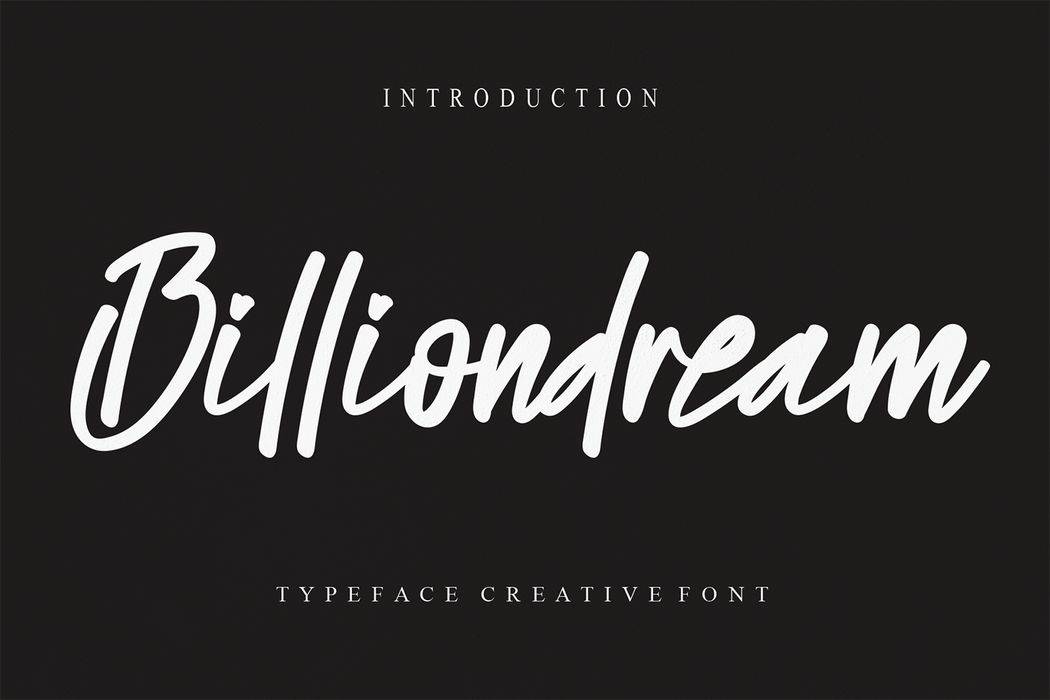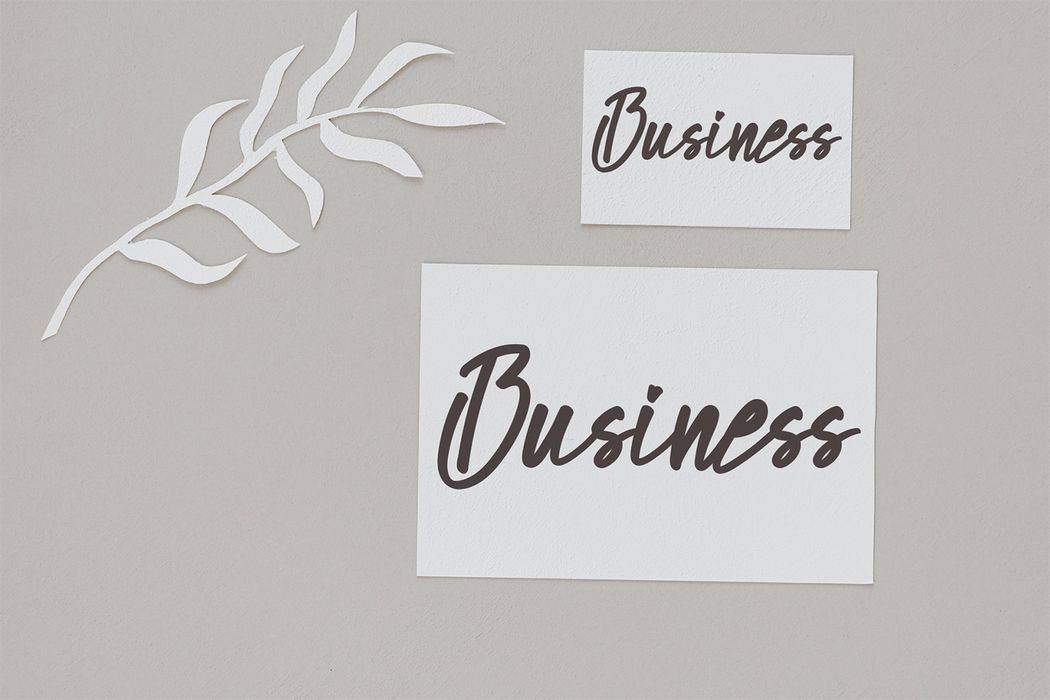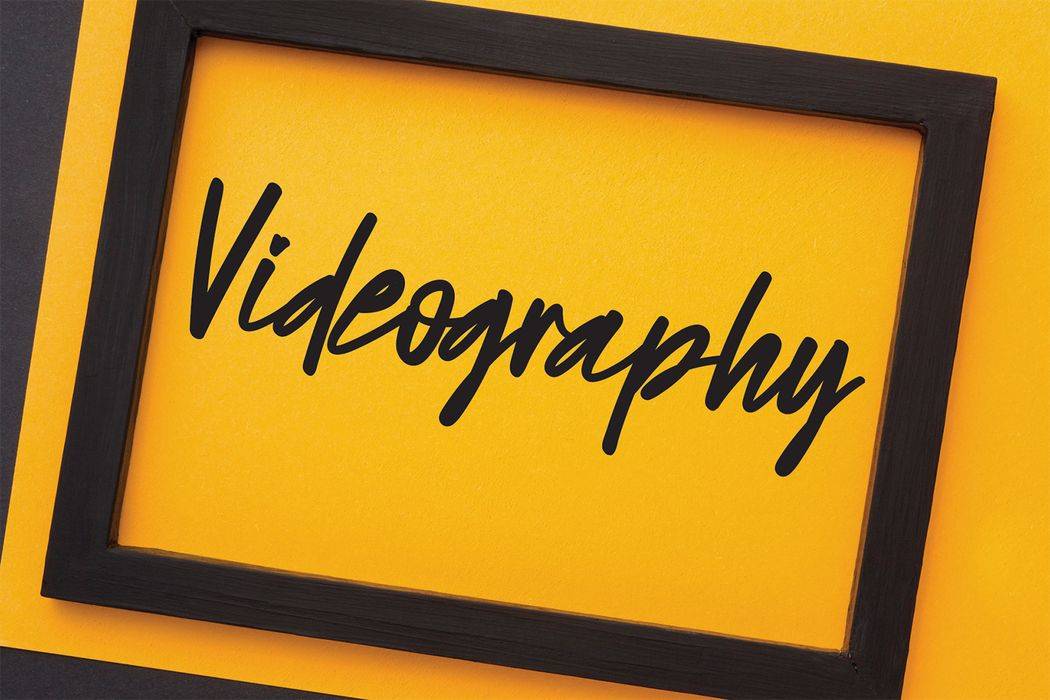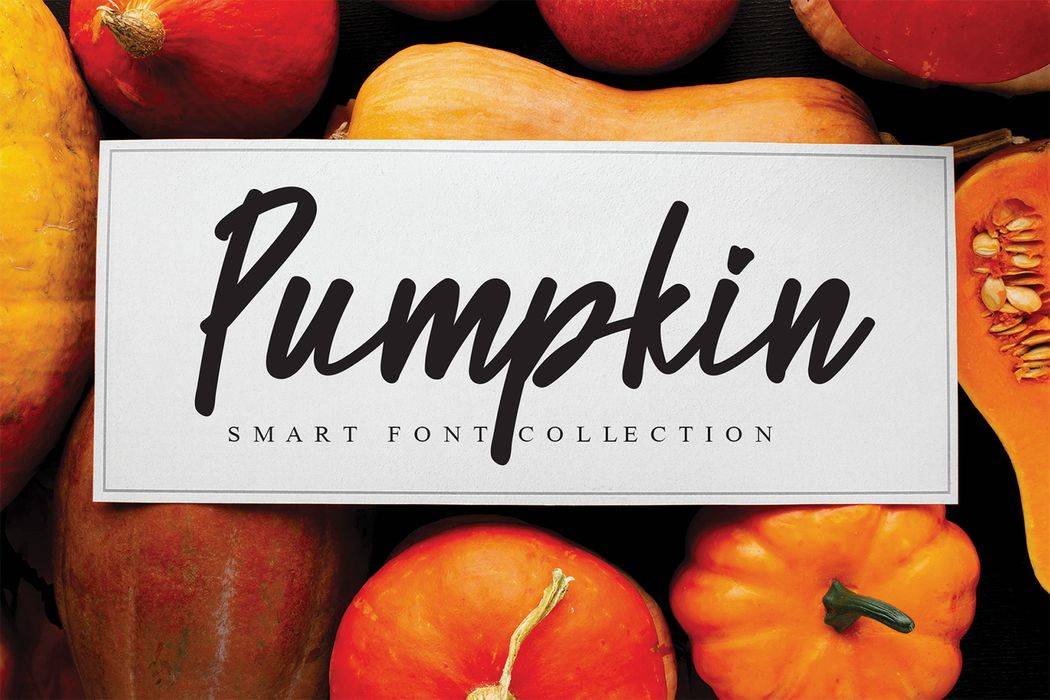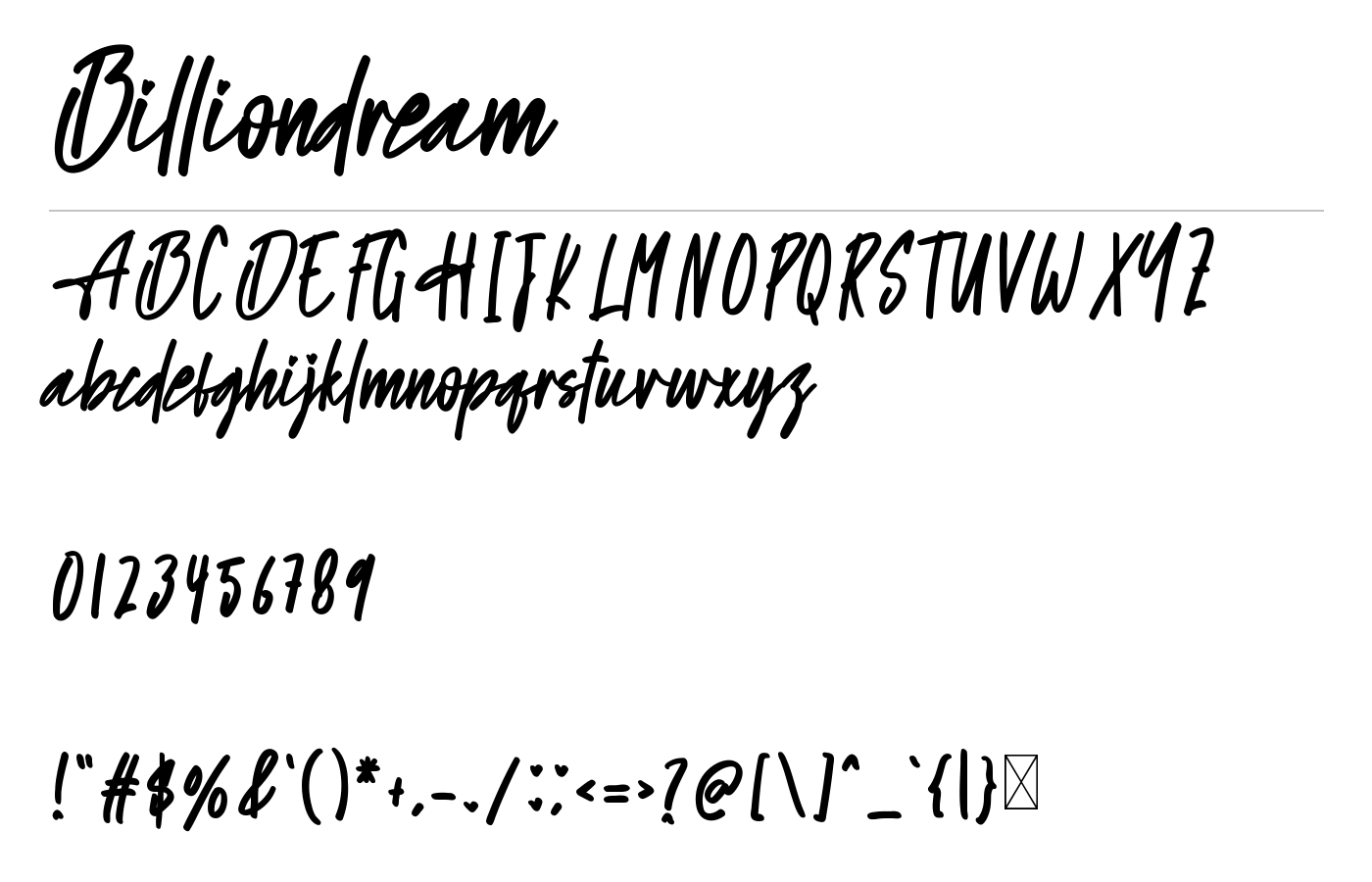
Billiondream is a lively and modern script font with a casual, handwritten feel that combines smooth, flowing strokes with a slightly bold weight. Its tall x-height and slightly condensed letterforms make it highly legible, while the natural, brush-like style adds personality and warmth. This font is perfect for creative branding, social media graphics, and informal headlines where a personal and approachable touch is desired.
Billiondream Font
About Billiondream Font